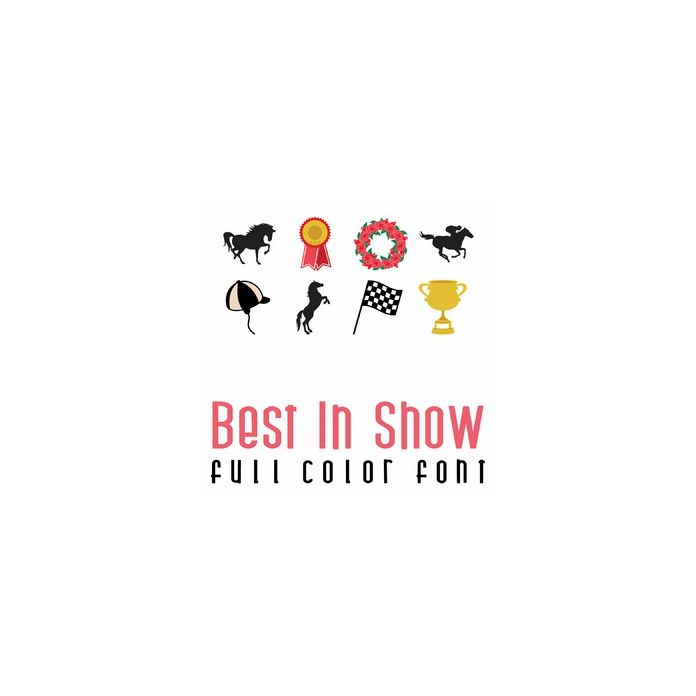
This adorable full-color doodlebat font features is perfect for the horse lover with 26 Kentucky Derby images from horses to roses. Perfect for cards, crafts, gifts, decor, scrapbook pages, planner stickers, and more!